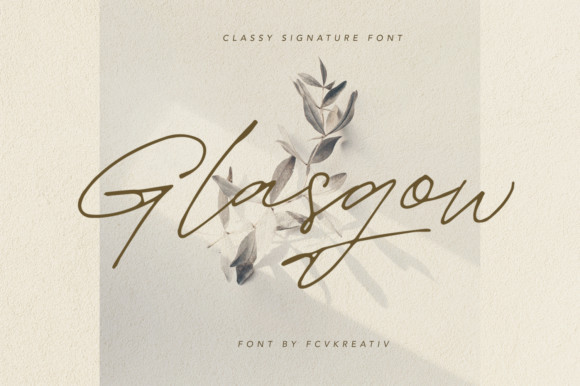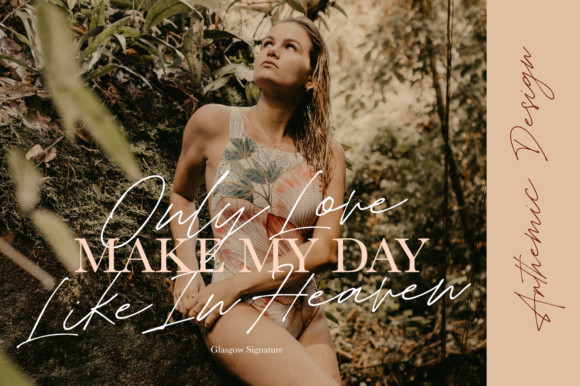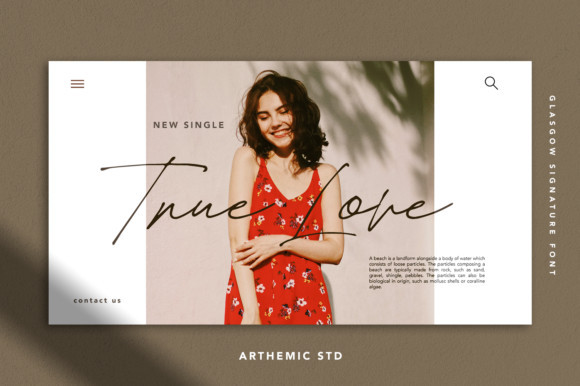
Glasgow Font
Glasgow is a delicate and flowing handwritten font. It looks stunning on wedding invitations, thank you cards, quotes, greeting cards, logos, business cards and every other design which needs a handwritten touch.